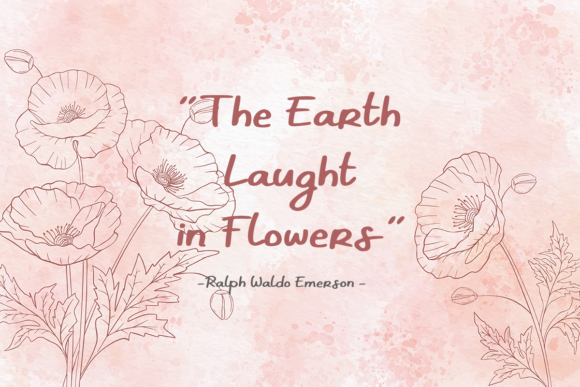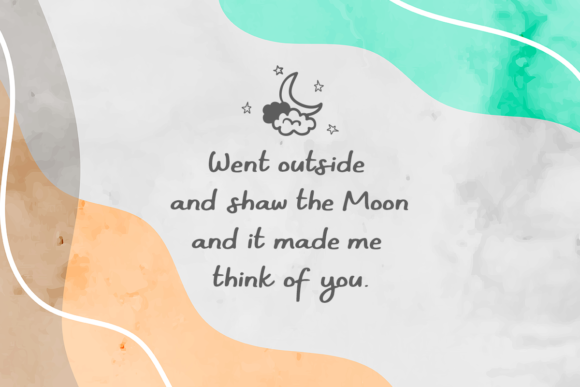
Moonrise Font
db-ku.com - Script & Handwritten -- Moonrise is a charming, whimsical and cute handwritten font. This font is PUA encoded which means you can access all of the glyphs and swashes with ease!